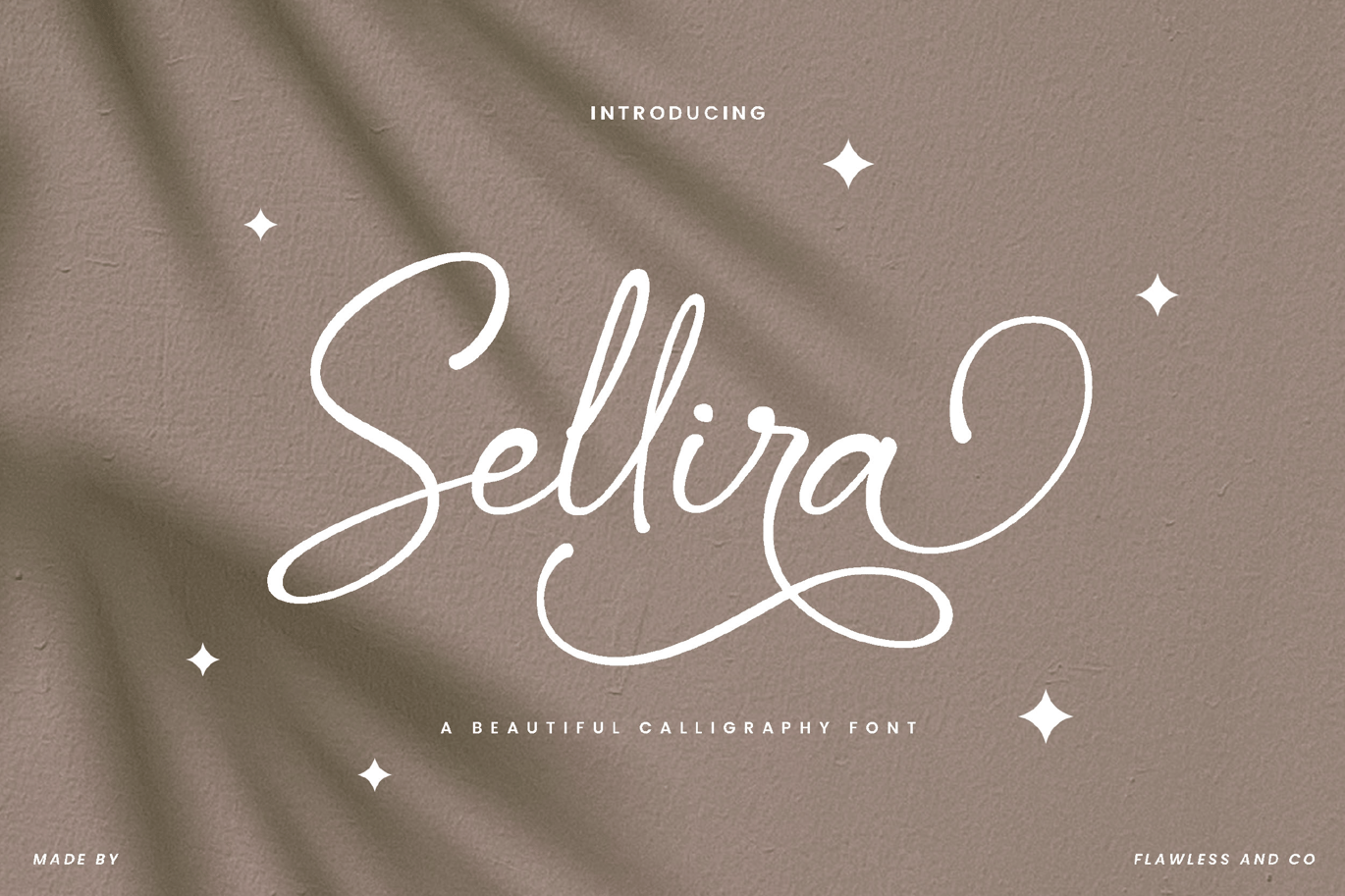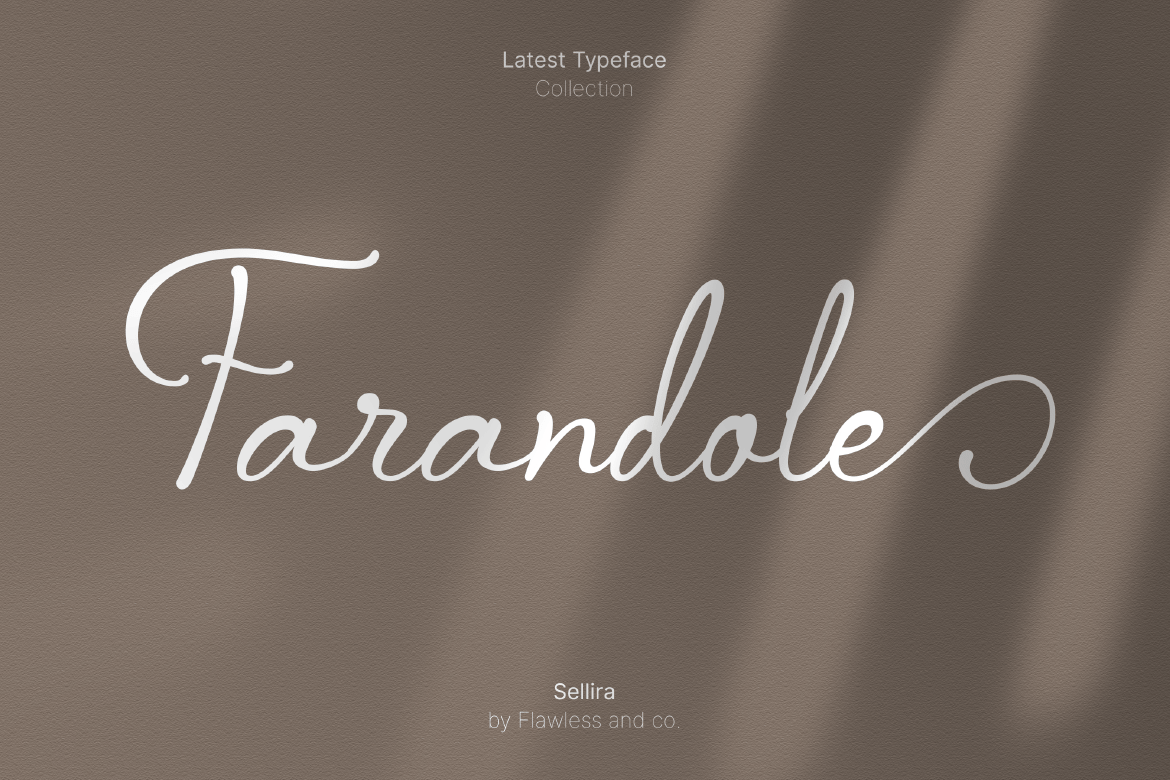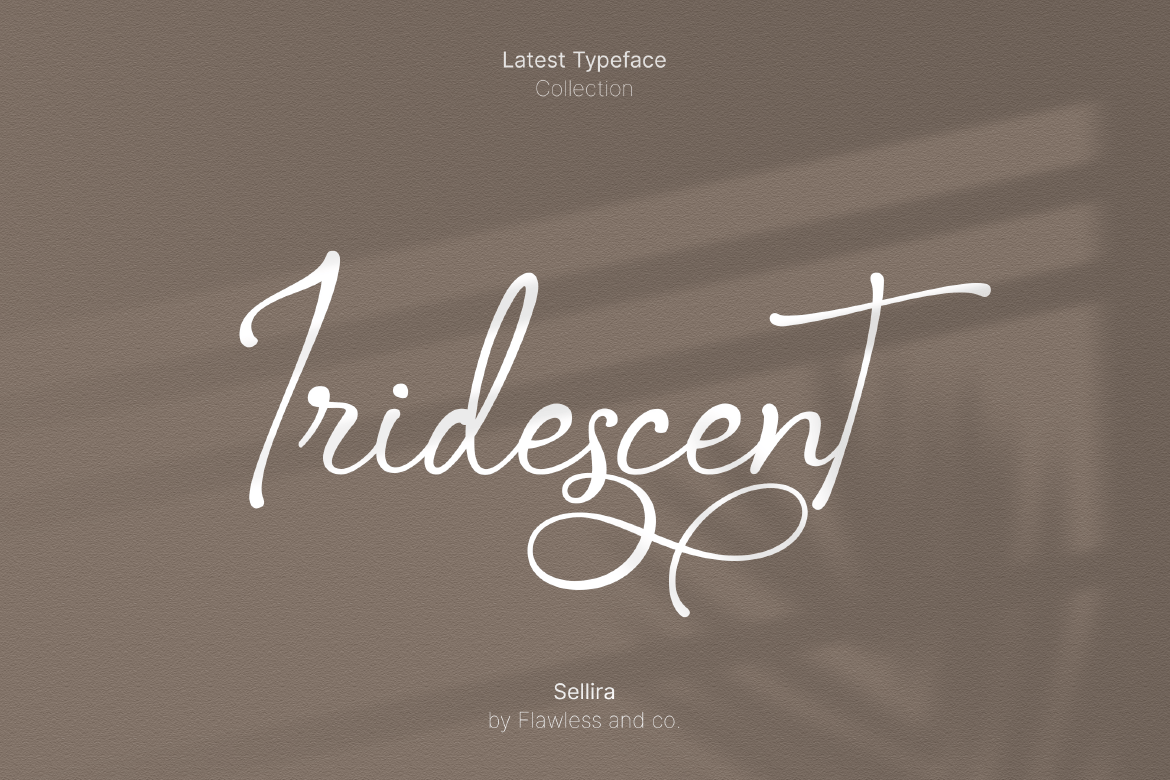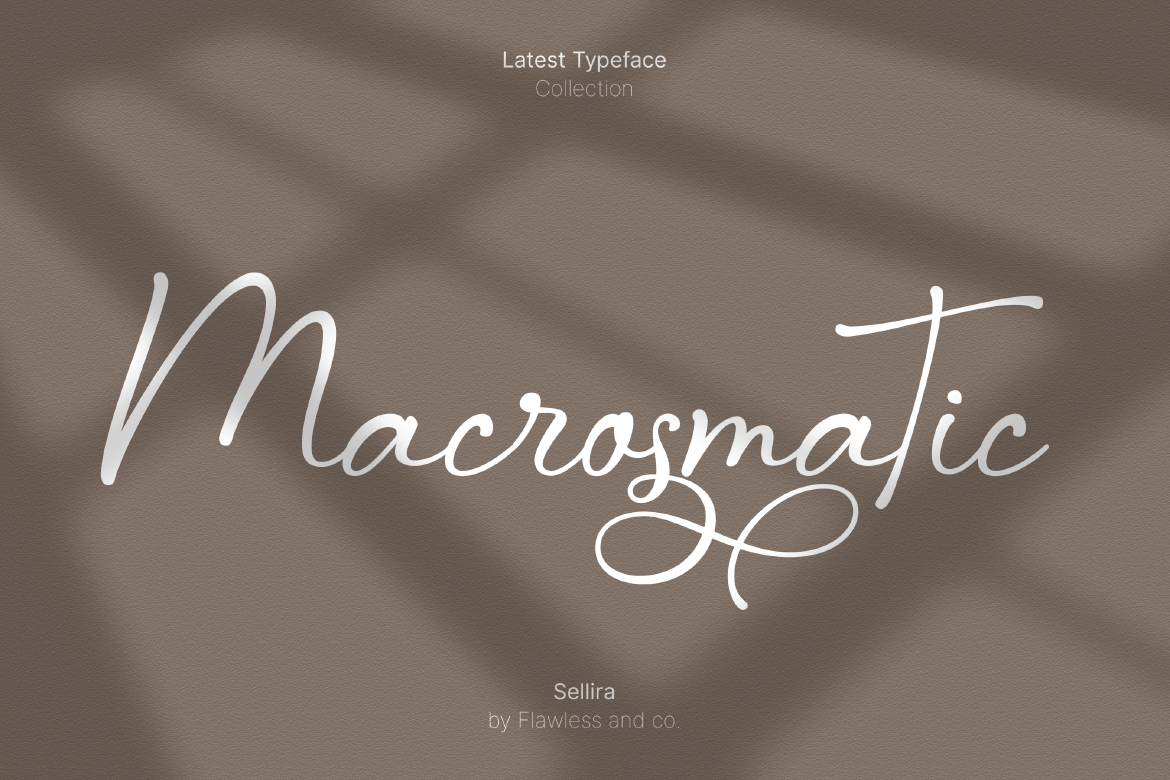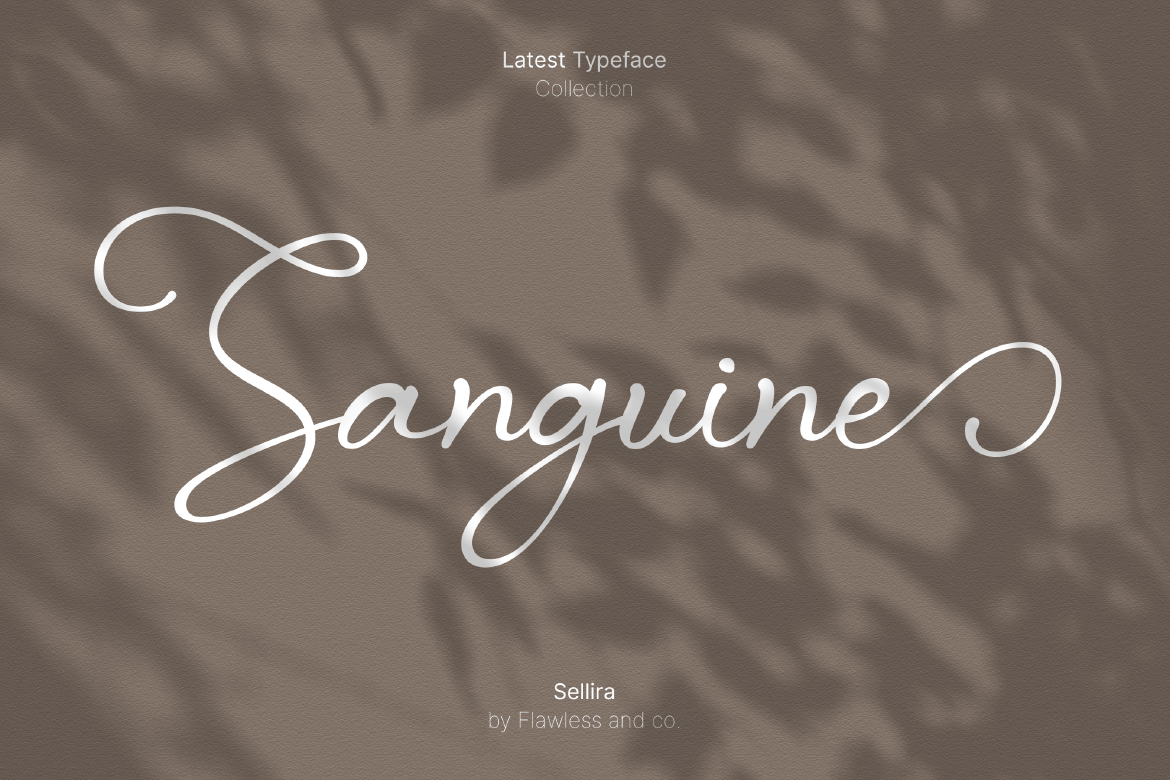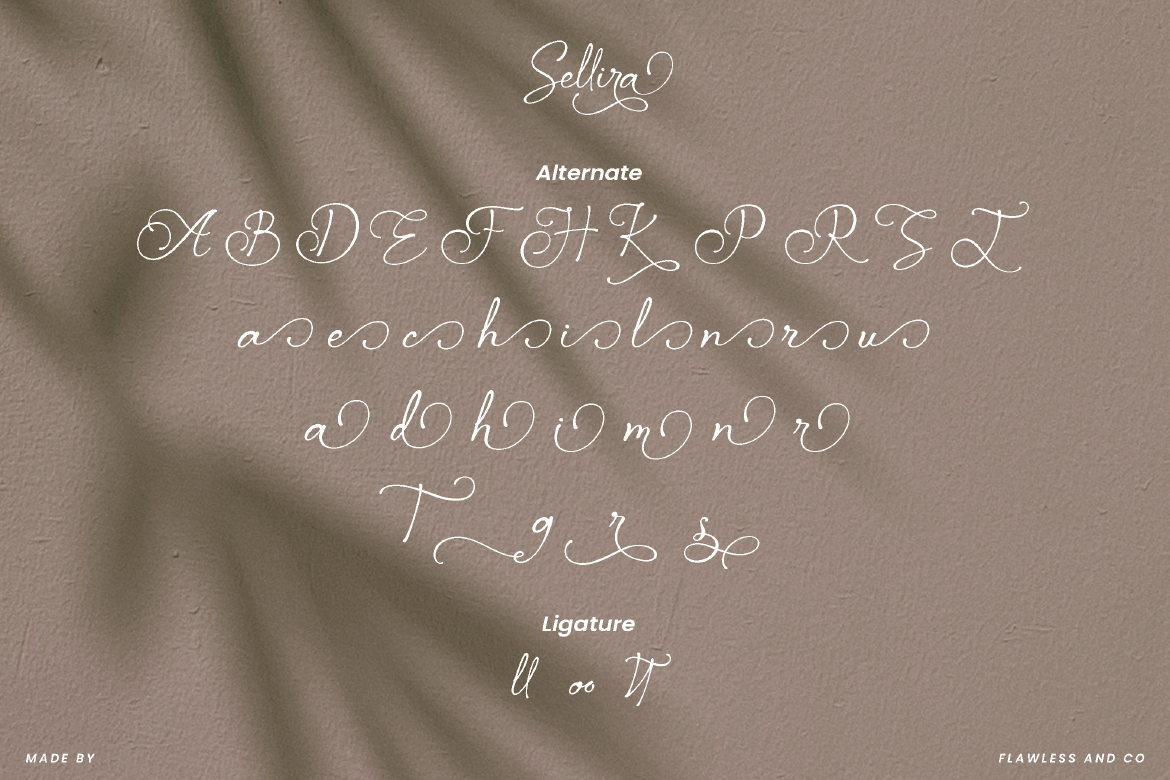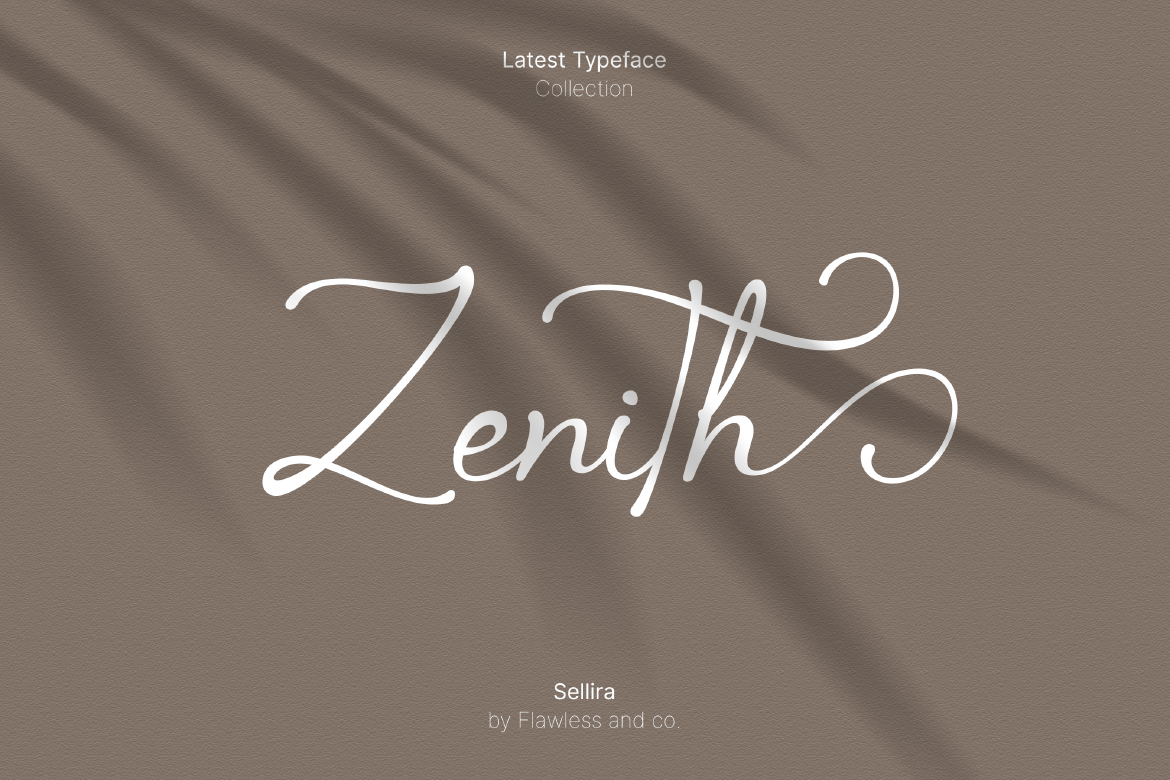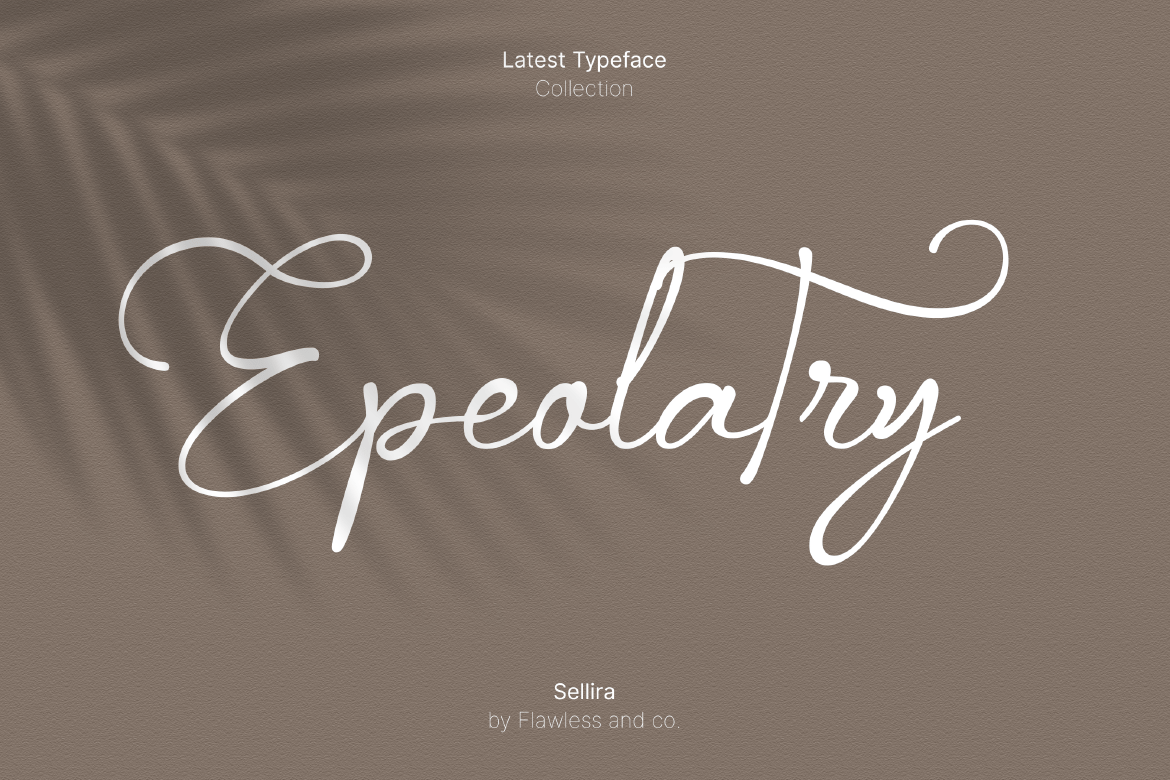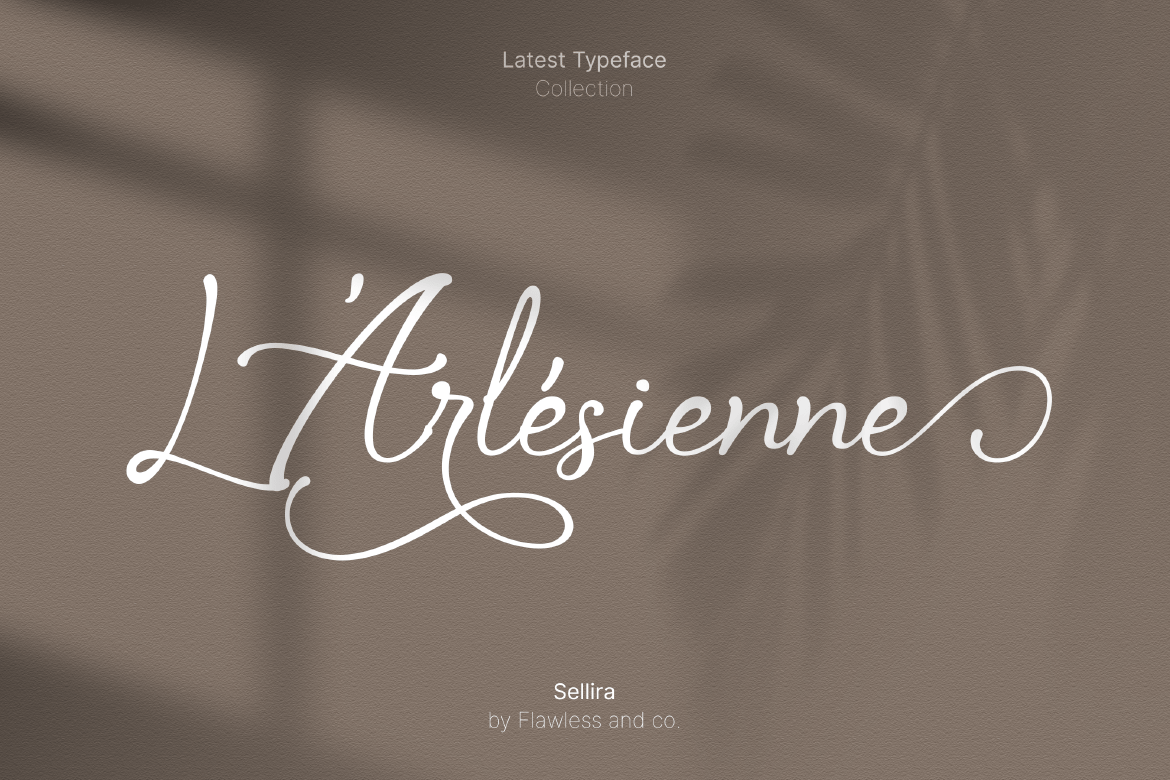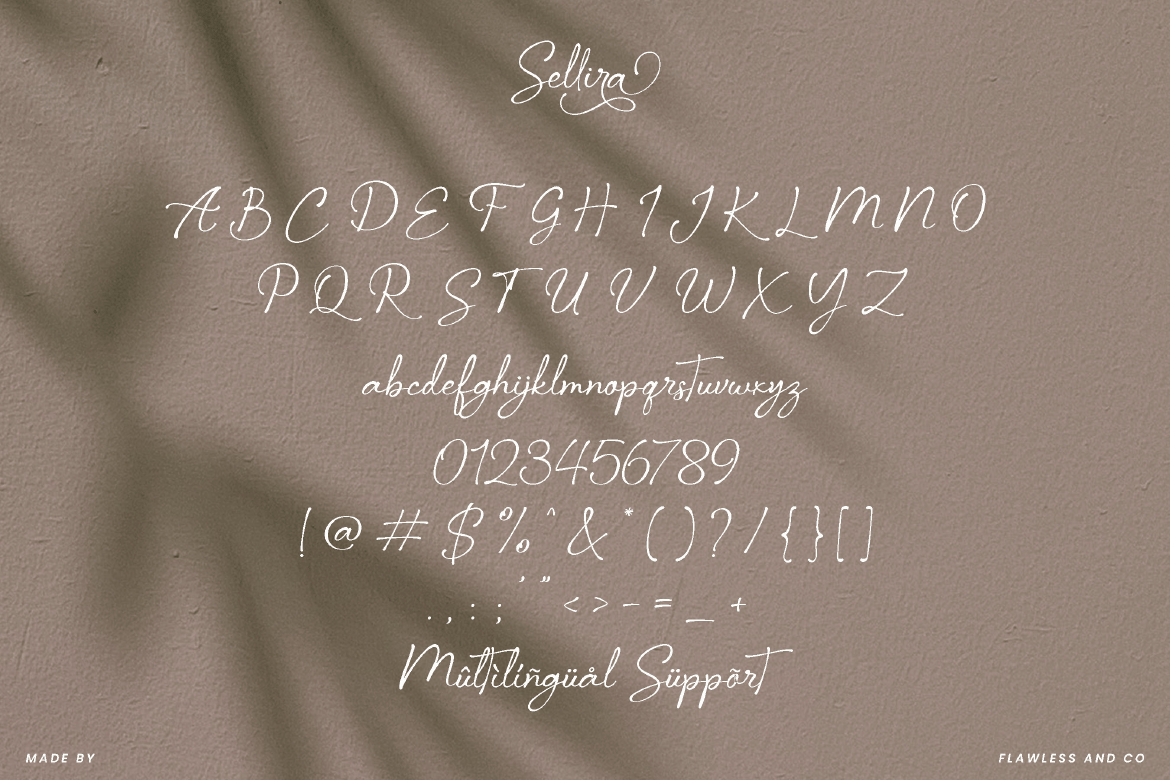
Sellira – Beautiful Calligraphy Font
Introducing “Sellira” is a beautiful calligraphy font. Indulge in the exquisite beauty of “Sellira,” a captivating calligraphy font that transcends the ordinary. With its graceful curves and intricate details, Sellira transforms every stroke into a work of art, making it the perfect choice for projects that demand a touch of refined beauty. This font is suitable for any graphic design such as branding materials, wedding invitations, posters, cards, t-shirts, quotes, etc.
Alternate Character